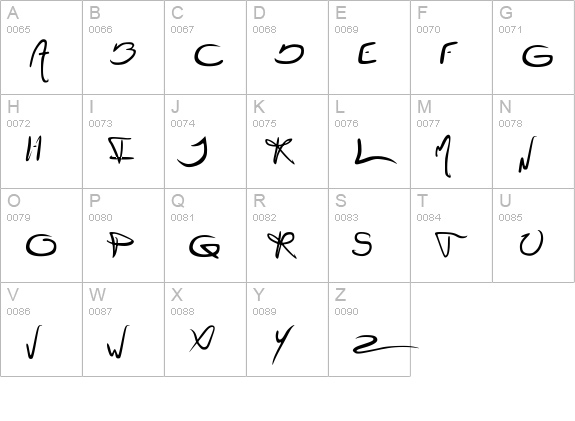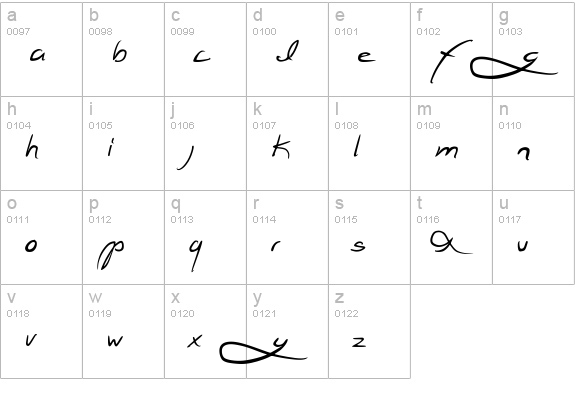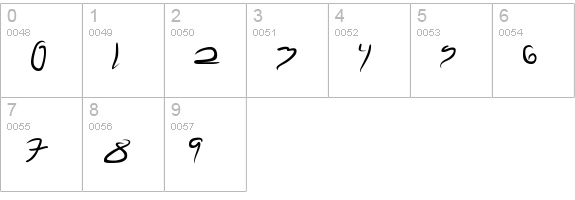
Jellyka jellyfish Font Details
Jellyka Jellyfish Font is a whimsical and playful typeface that exudes a unique charm and creativity. Its flowing, hand-drawn style captures the essence of a light-hearted jellyfish dancing in the ocean waves. The irregular strokes and organic shapes give this font a fun and casual feel, perfect for adding a touch of personality to your projects. This delightful font is available for free download at FontsMarket.com, making it easily accessible for all your creative endeavors. Whether you're working on invitations, posters, or branding materials, Jellyka Jellyfish Font will bring a sense of joy and character to your designs. Embrace the free-spirited nature of this font and let your creativity flow with every stroke of the pen.